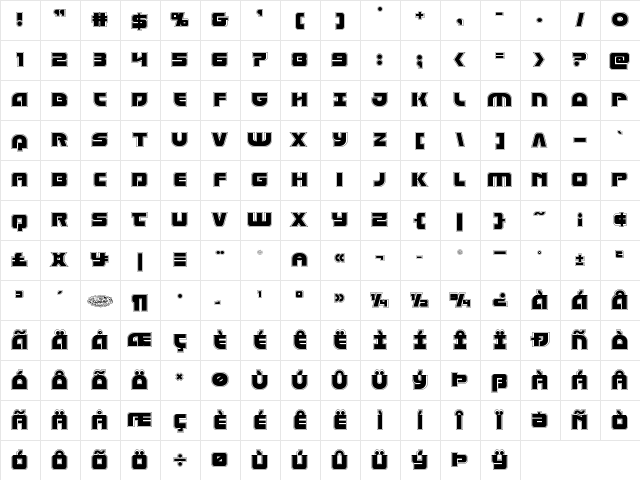
Laser Corps Academy Regular
Design Context for Laser Corps Academy Typeface
Laser Corps Academy is a composed and adaptable typeface that performs quietly and consistently across a wide range of design contexts.